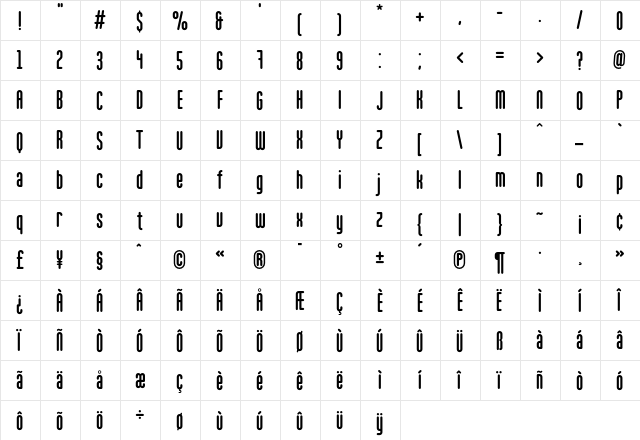
Marten Regular
Design Context for Marten Typeface
Marten offers clean, dependable letterforms without strong stylistic allegiance, making it a practical choice for designers who need flexibility.
Pro Tip: Use Marten in both headline and body roles to test its range before committing to a single application.